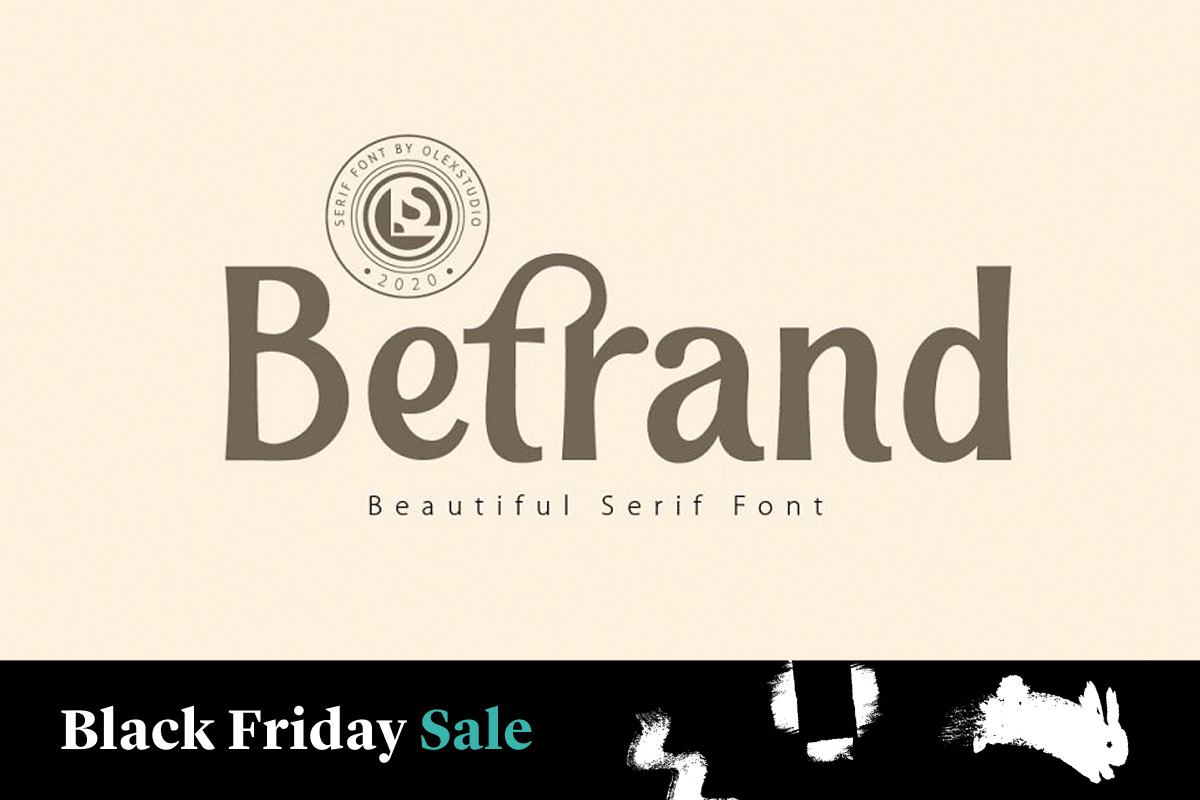
BETRAND - Serif Free Download
BETRAND Font – Serif Free Download
BETRAND Font – Serif Free Download is a classy and refined serif typeface designed to bring timeless sophistication to any project. With its elegant proportions, sharp serifs, and high-contrast strokes, this font is perfect for luxury branding, editorial design, high-end packaging, wedding materials, and upscale digital content.
BETRAND effortlessly blends tradition and modernity, making it ideal for both classic and contemporary aesthetics. Whether used in headlines or paired with simpler fonts for body text, it brings structure and elegance with every letterform.
Elevate your typography with the timeless charm of BETRAND.